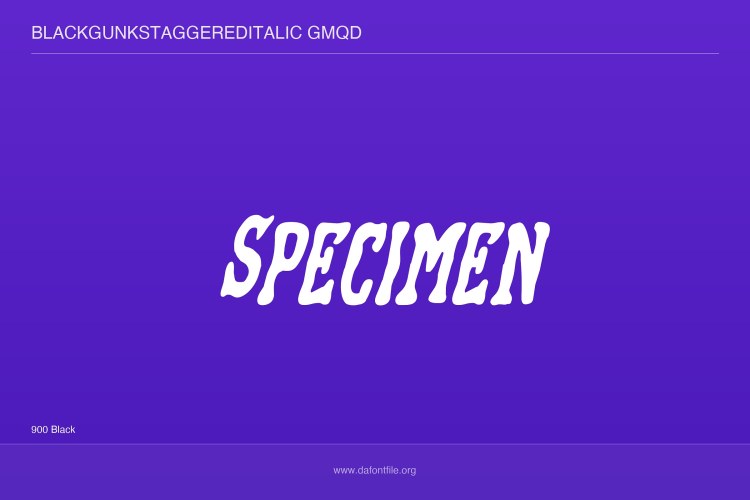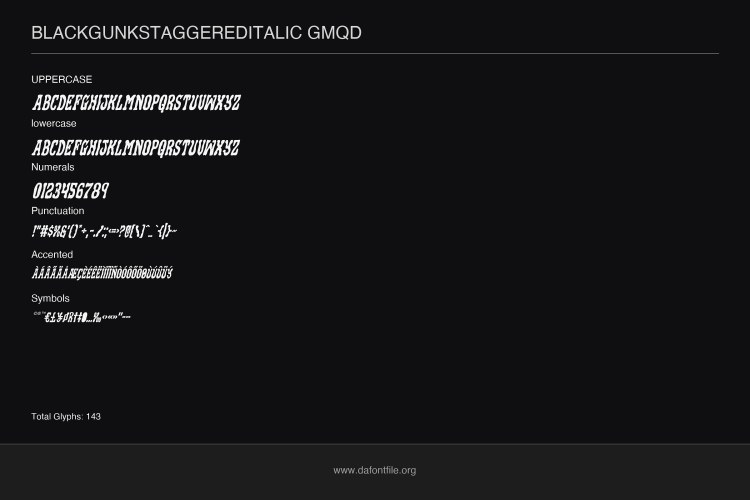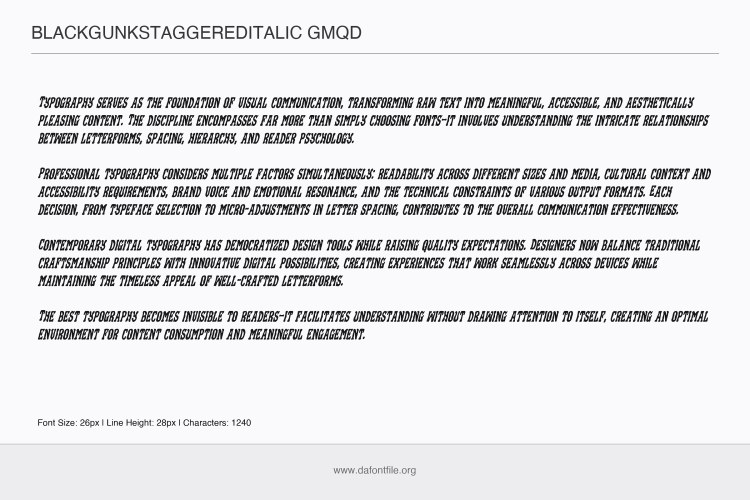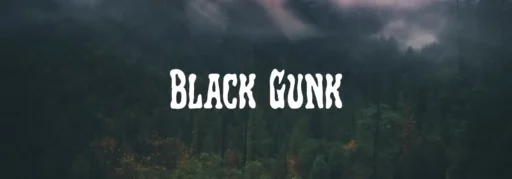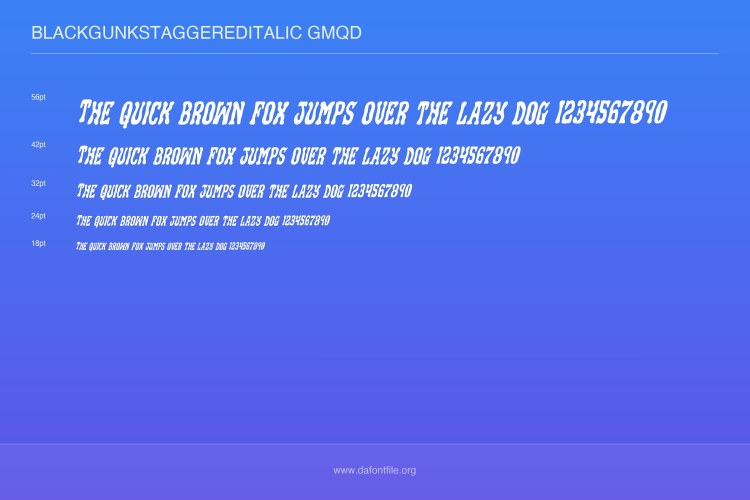
Black Gunk Font Family
Black Gunk is a raw and edgy display font built for designs that need attitude. Its bold, grungy shapes create a rebellious energy, making it perfect for posters, album covers, streetwear branding, and any project that calls for a rough, standout look.
Where Black Gunk Font Family works best
Black Gunk Font Family is built for size: event posters, hero headlines and billboard-style layouts.
High contrast display type like Black Gunk Font Family reads instantly in thumbnails and motion graphics.
What is Black Gunk Font Family good for?